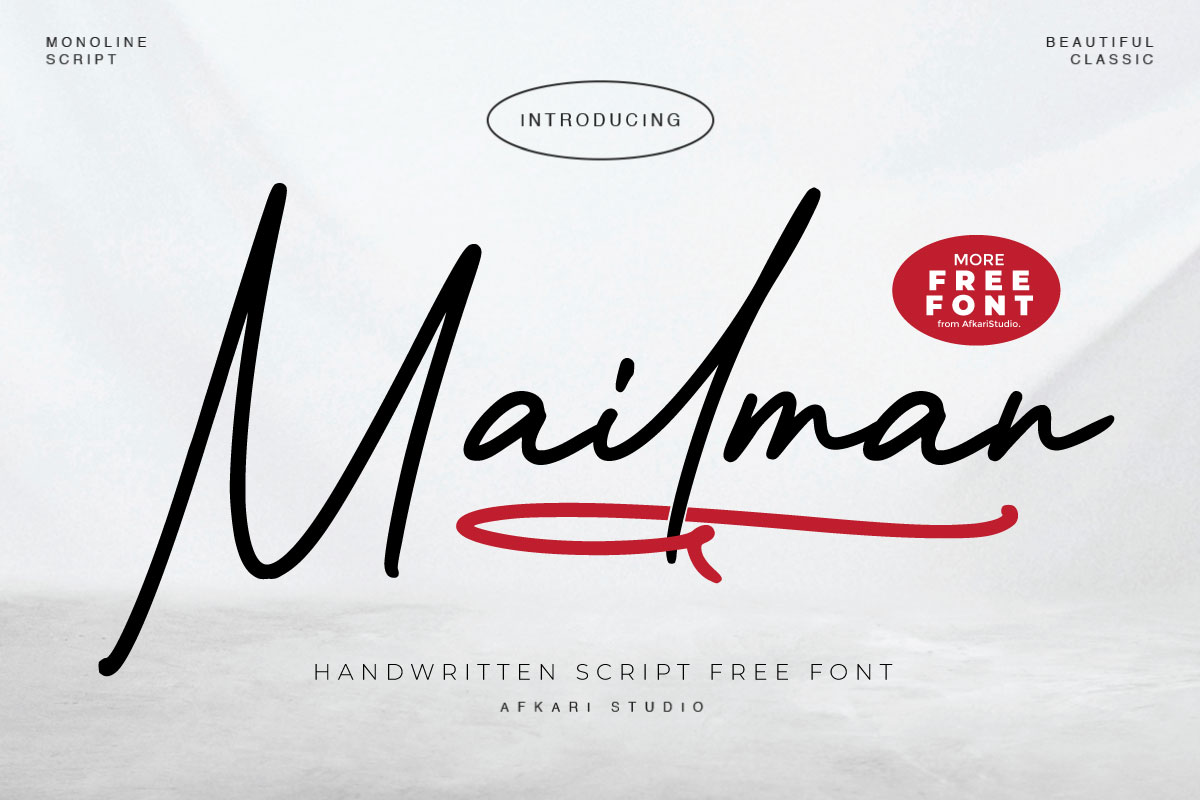
Mailman - Handwritten Script Font Font
Designed by Afkari Studio
About Mailman - Handwritten Script Font
This font 100% Free for pesonal and commercial use, Dekstop Licence. is an elegant Handwritten font designed to infuse modernity and charm into your projects, exuding a delightful and welcoming ambiance. Discover the font’s versatility and immerse yourself in its enchanting appeal.